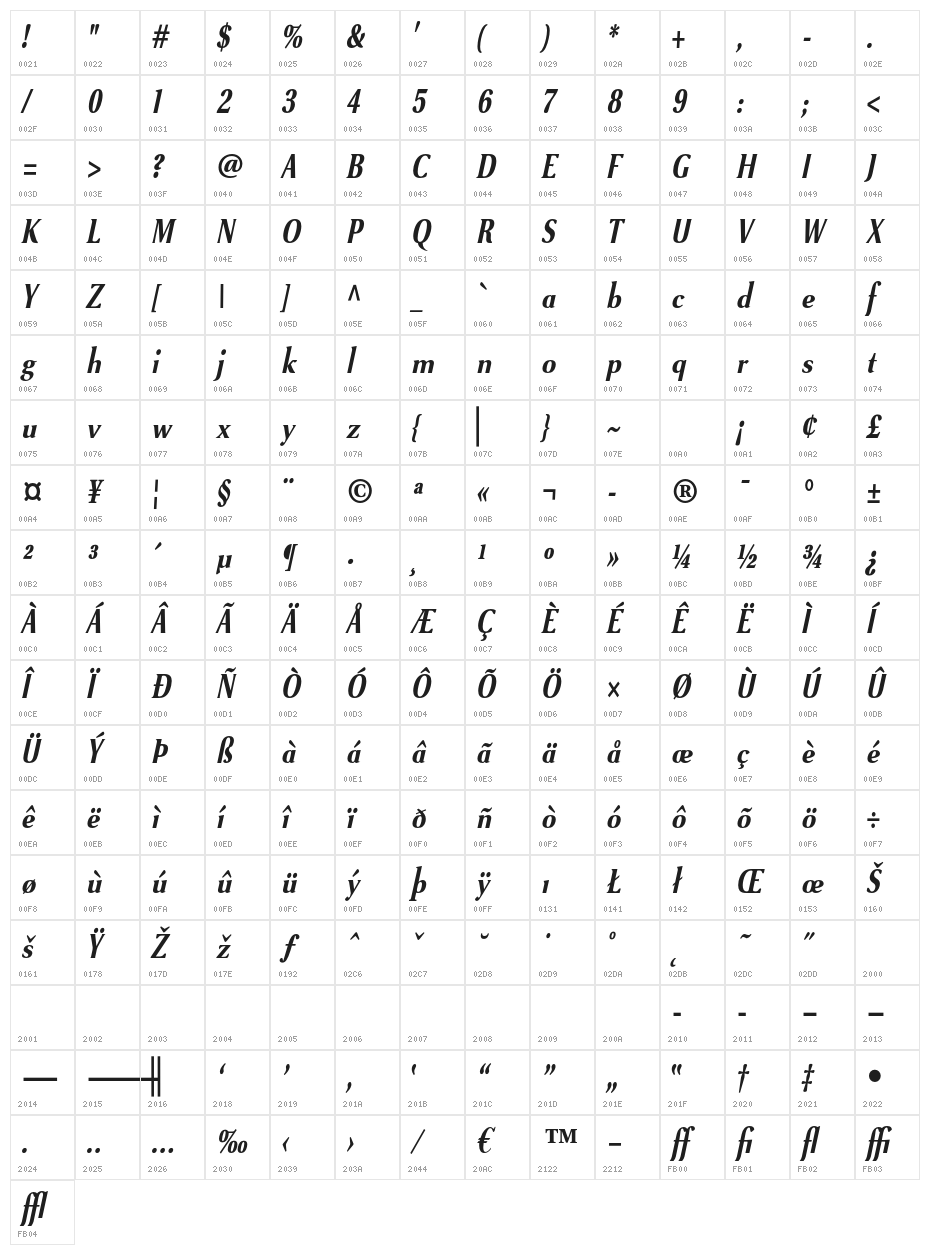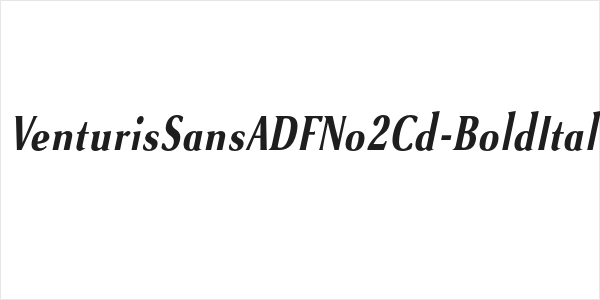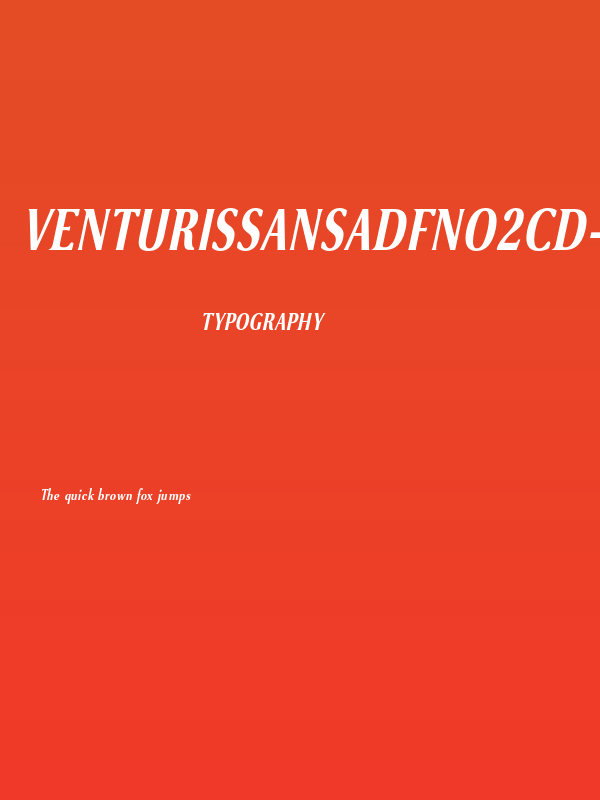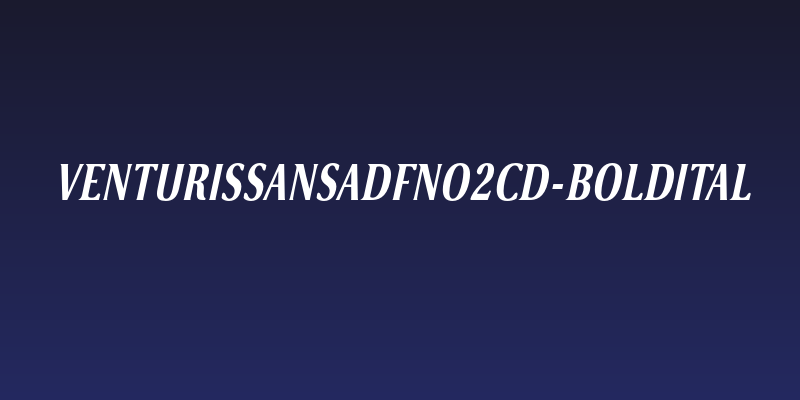
VenturisSansADFNo2Cd-BoldItal Font
VenturisSansADFNo2Cd-BoldItal Description
This font exhibits a bold and italicized style, characterized by its elegant and slightly condensed letterforms. The uppercase letters are tall and commanding, while the lowercase letters maintain a consistent flow with a slight slant, enhancing readability. The numerals are clear and well-proportioned, making them suitable for various applications. Special characters are distinct and harmonize well with the overall design, adding versatility. The font's boldness and italic nature give it a dynamic and sophisticated appearance, making it ideal for impactful designs.
| Proposed Projects | Ideal for branding, headlines, advertising, and editorial design projects where a strong, elegant presence is desired. |